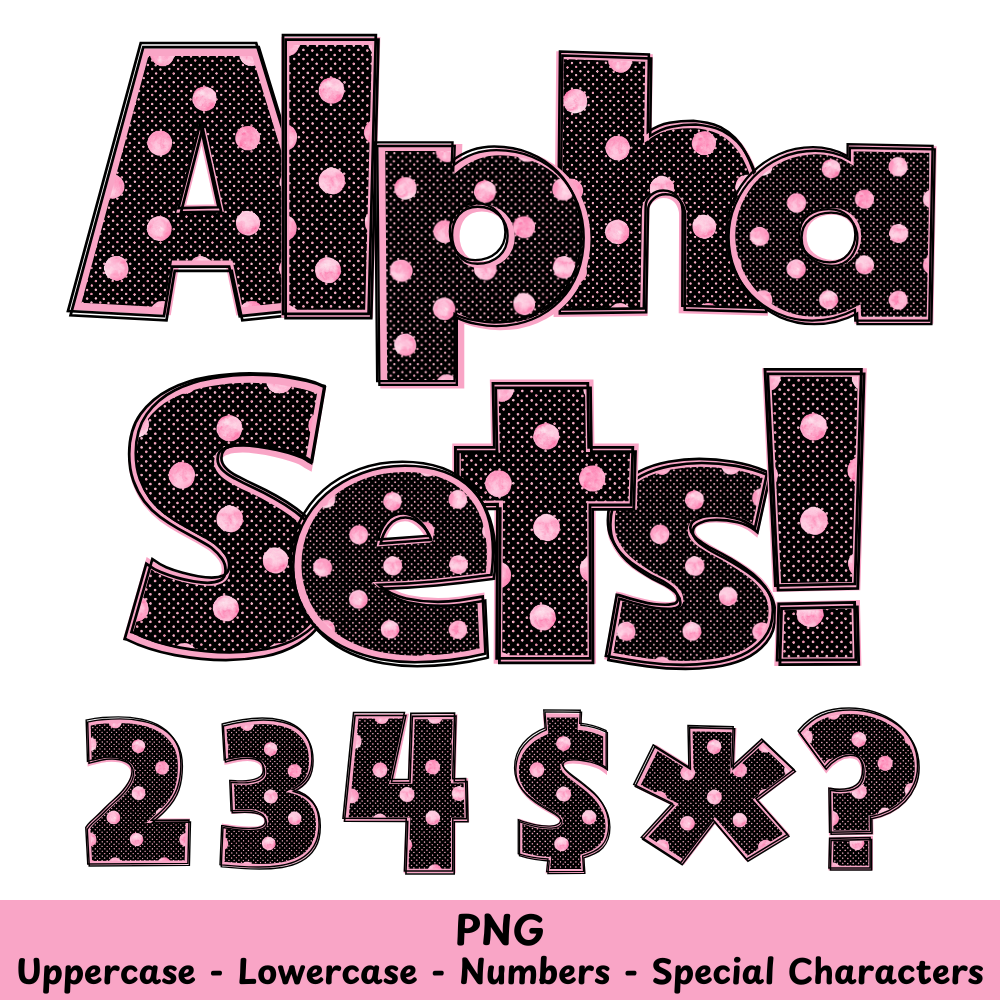
Pink Polka Dots PNG Font
Pink Polka Dots Alpha Set PNG Font Pack
Introducing the Pink Polka Dots PNG Font, perfect for all your crafting and sublimation needs. With its playful pink polka dot design, this font will add a touch of whimsy to any project. Use it to create eye-catching graphics and designs with ease.